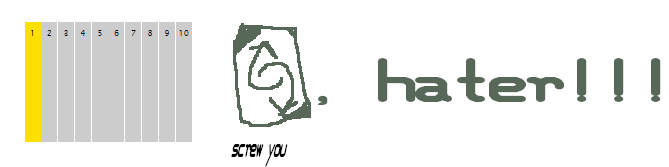
the +100 card has 100 squares spelling "screw u" cuz if u play it to someone he gets screwed.
the "c" was exactly the same as the "O"
Added "Switch hands (not the 7)" on [c] (From Uno All Wild!)
Added "10" and "#" on [.][#] (From Dos!)
Added "Targetted(?) +2" and "Discard all of the same colour (?)" on [A][d] (From UNO - All Wild & UNO Show Em' No Mercy)
Added "Attack (?)" on [C] (From UNO Attack!)
Edited some stuff
Added Y, JACK, QUEEN and KING {yjqk}... and moved the action cards to uppercase
The label on the top and bottom of the Y card says X.
negative one card
btw the no u card is official: https://youtu.be/pV-G8fzqmOw?t=57
also @18man can you remind me what the draw +? card did?